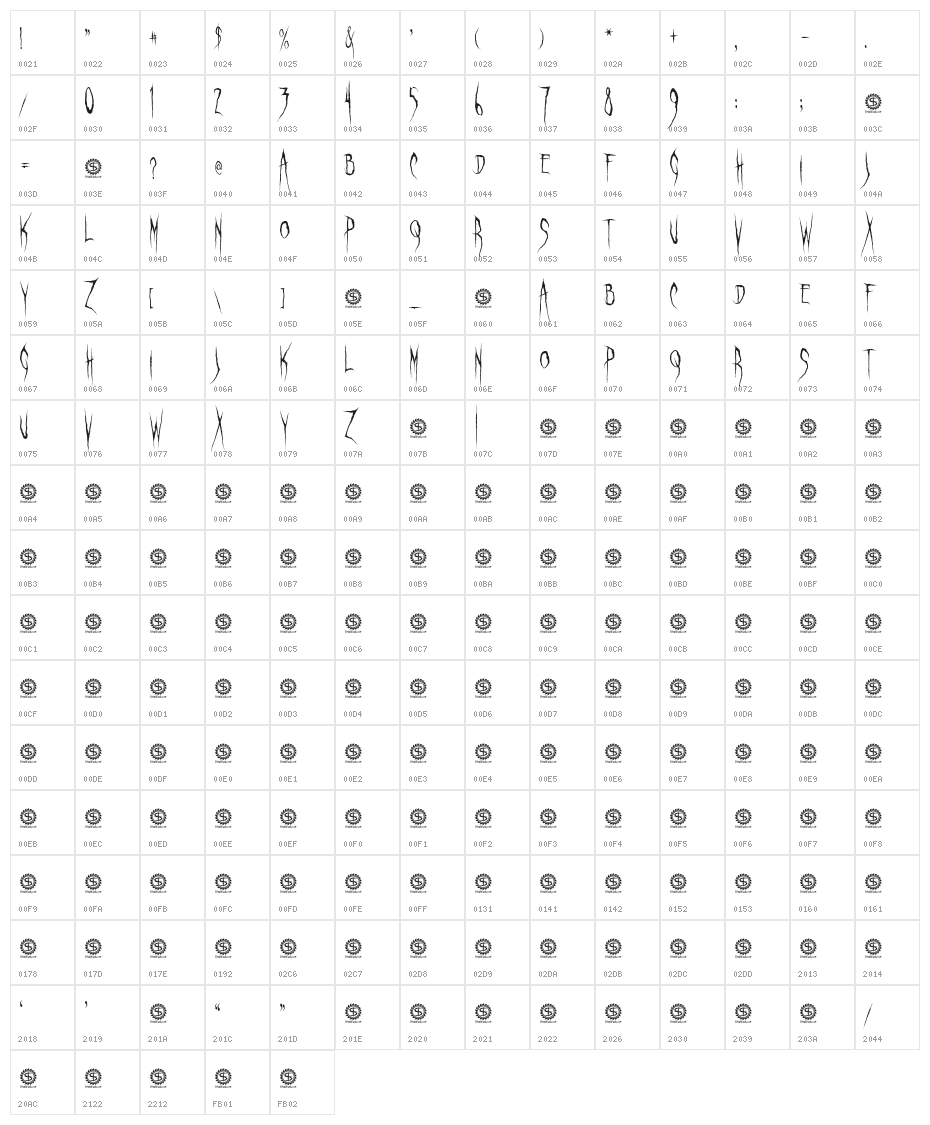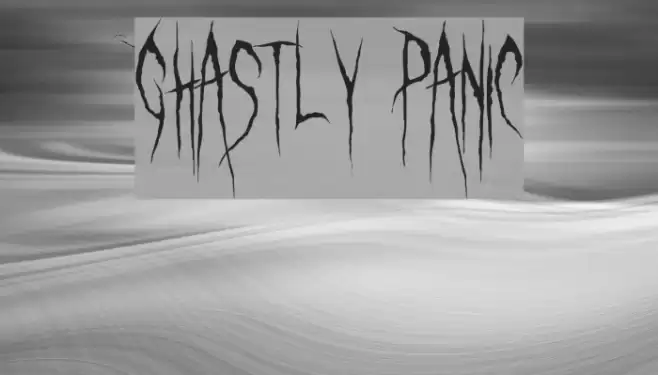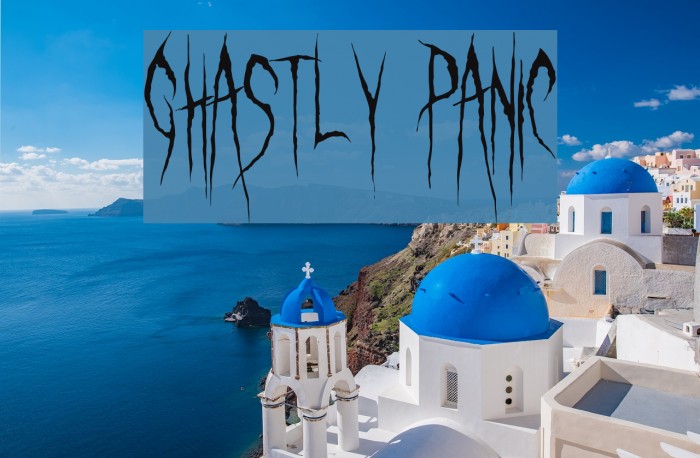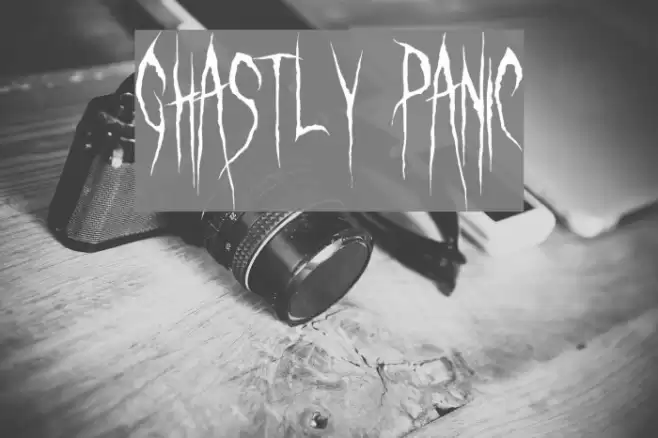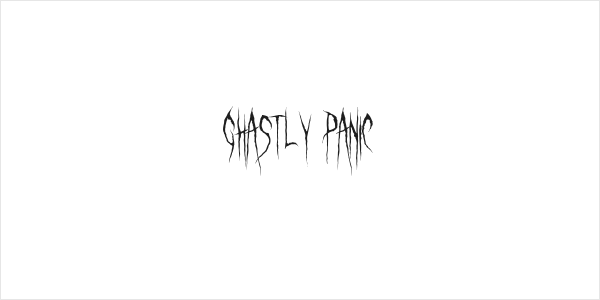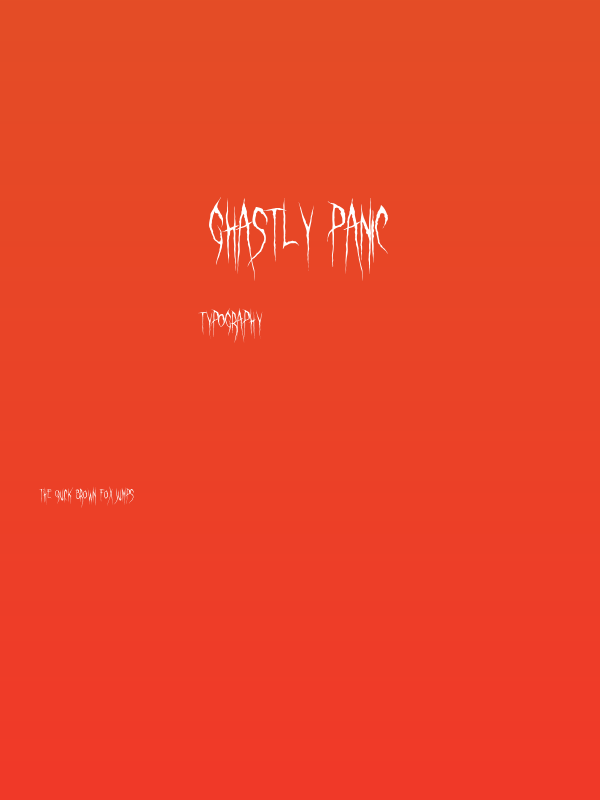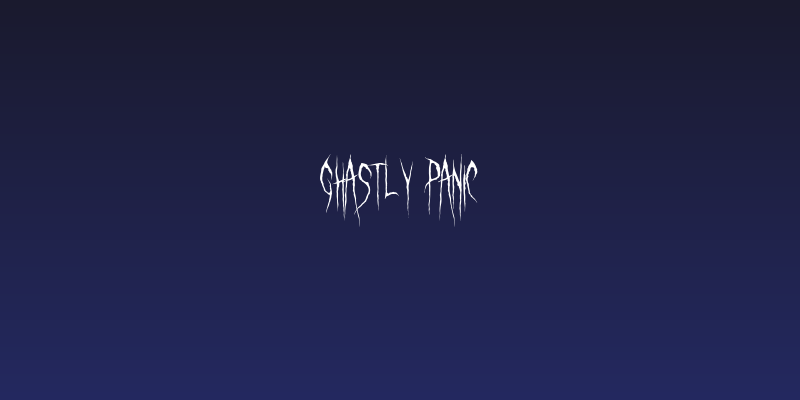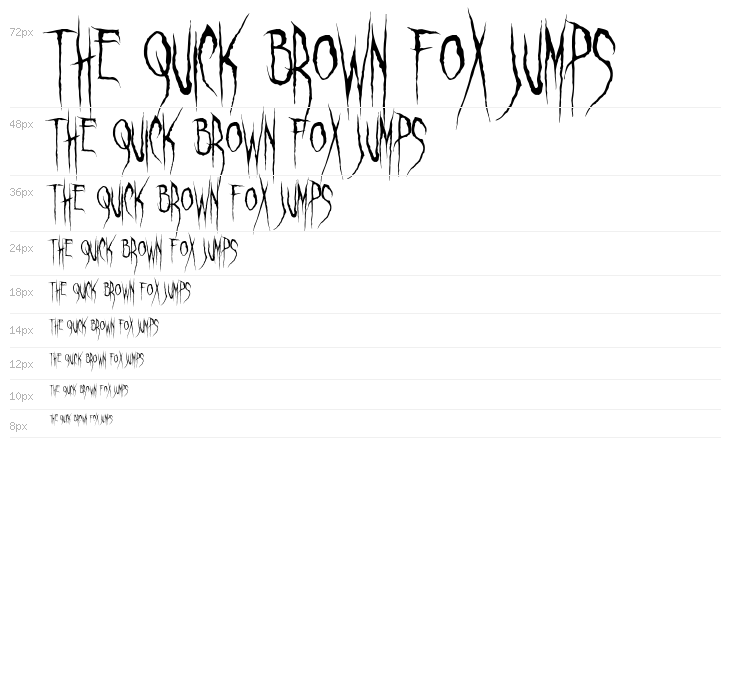
Ghastly Panic Font
Ghastly Panic Description
This font exudes a haunting and eerie aesthetic, characterized by its jagged and elongated letterforms. The strokes are uneven and sharp, giving it a chaotic and unsettling appearance. The uppercase and lowercase letters maintain a consistent style, with exaggerated vertical lines and pointed edges that resemble scratches or claw marks. The numerals and special characters follow the same unsettling theme, enhancing the font's overall spooky vibe. This font is perfect for creating a sense of horror or suspense, making it ideal for Halloween-themed projects or any design that requires a touch of the macabre.
| Proposed Projects | Ideal for Halloween invitations, horror movie posters, haunted house flyers, and spooky-themed merchandise. |